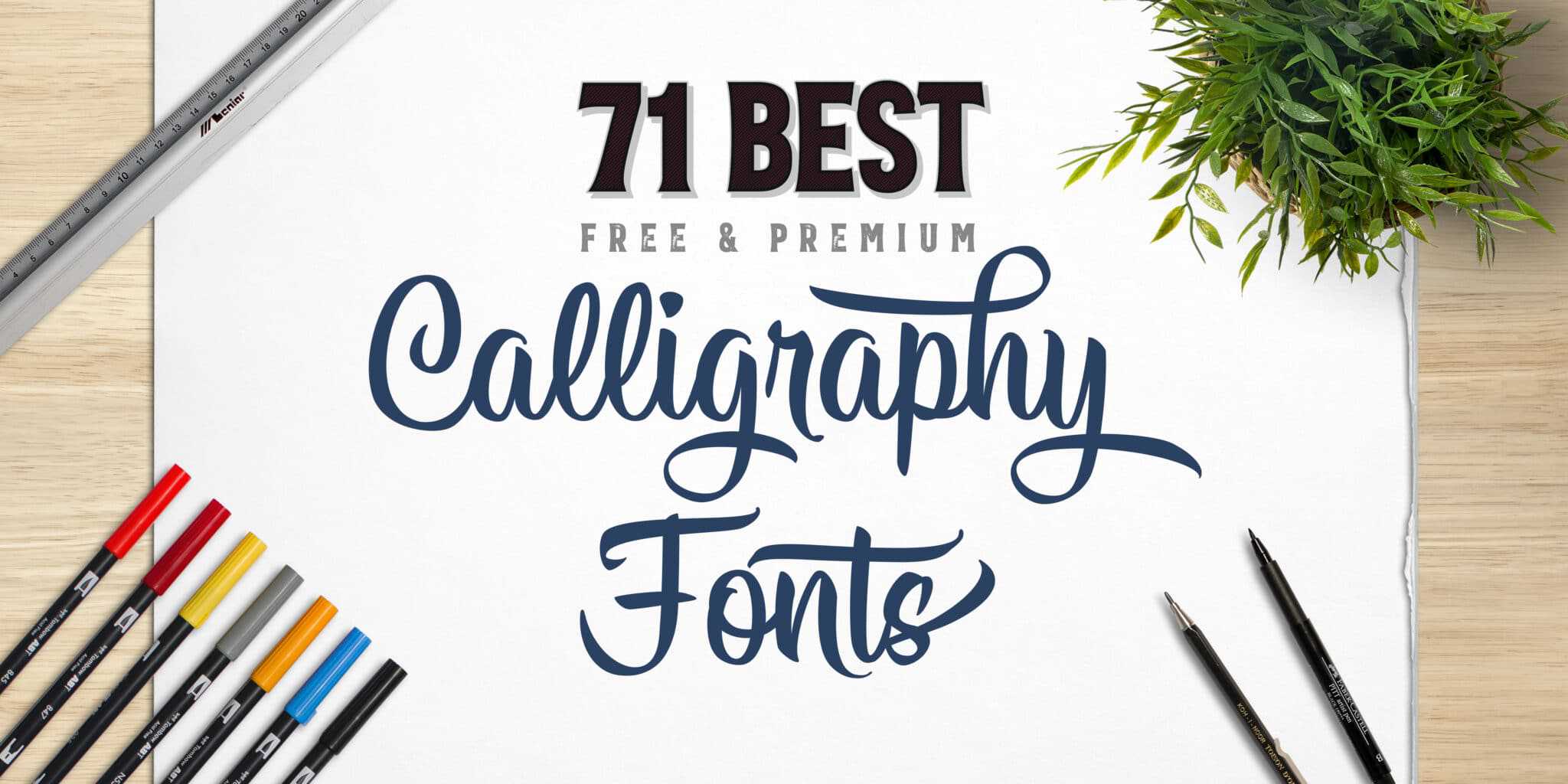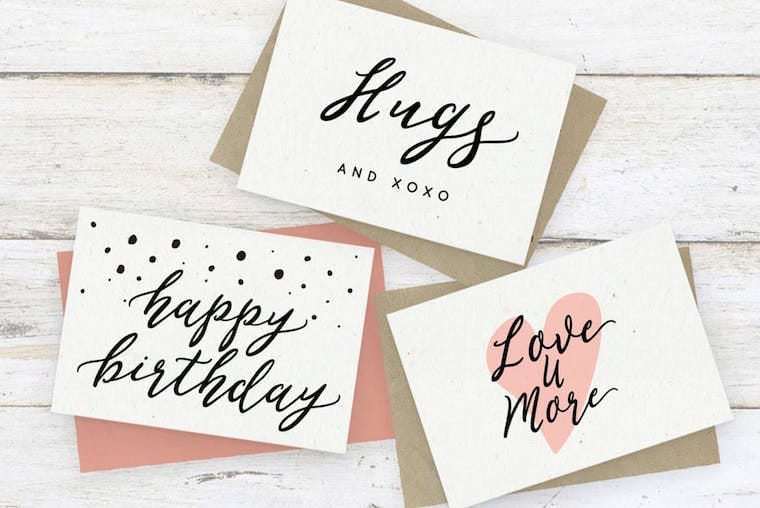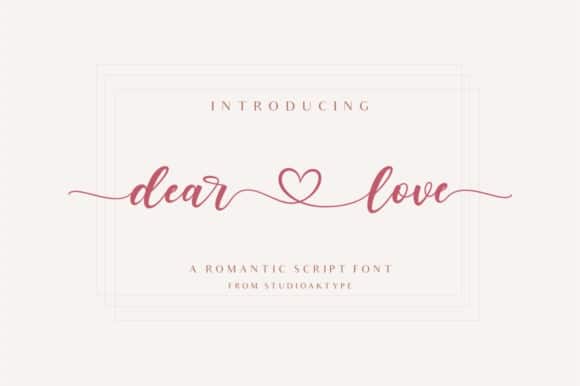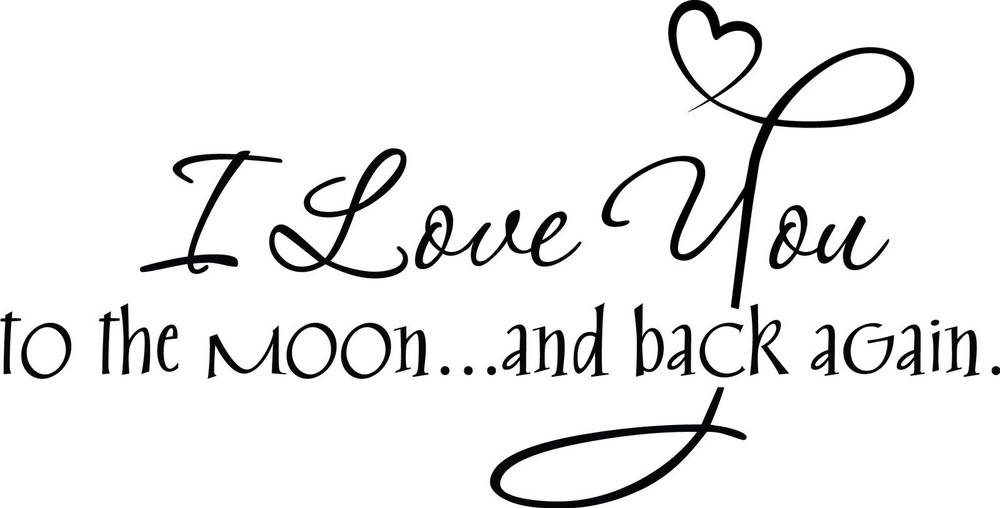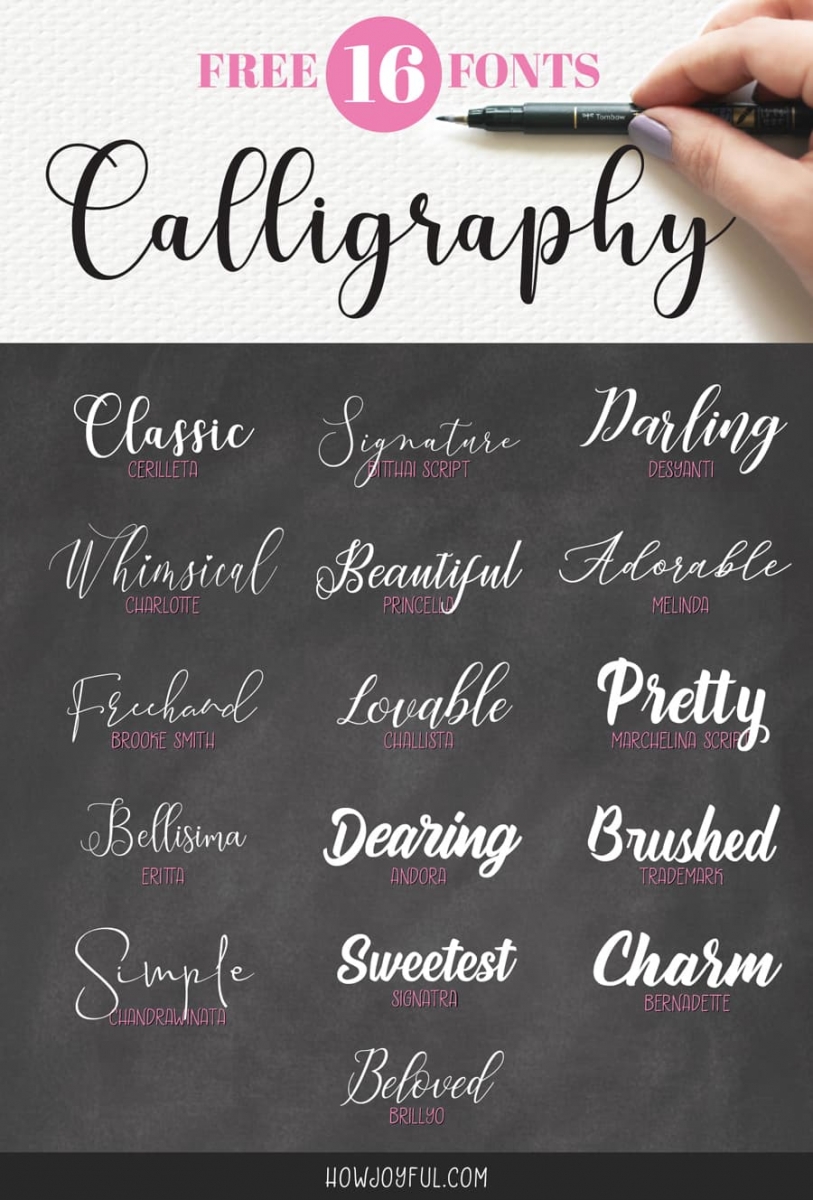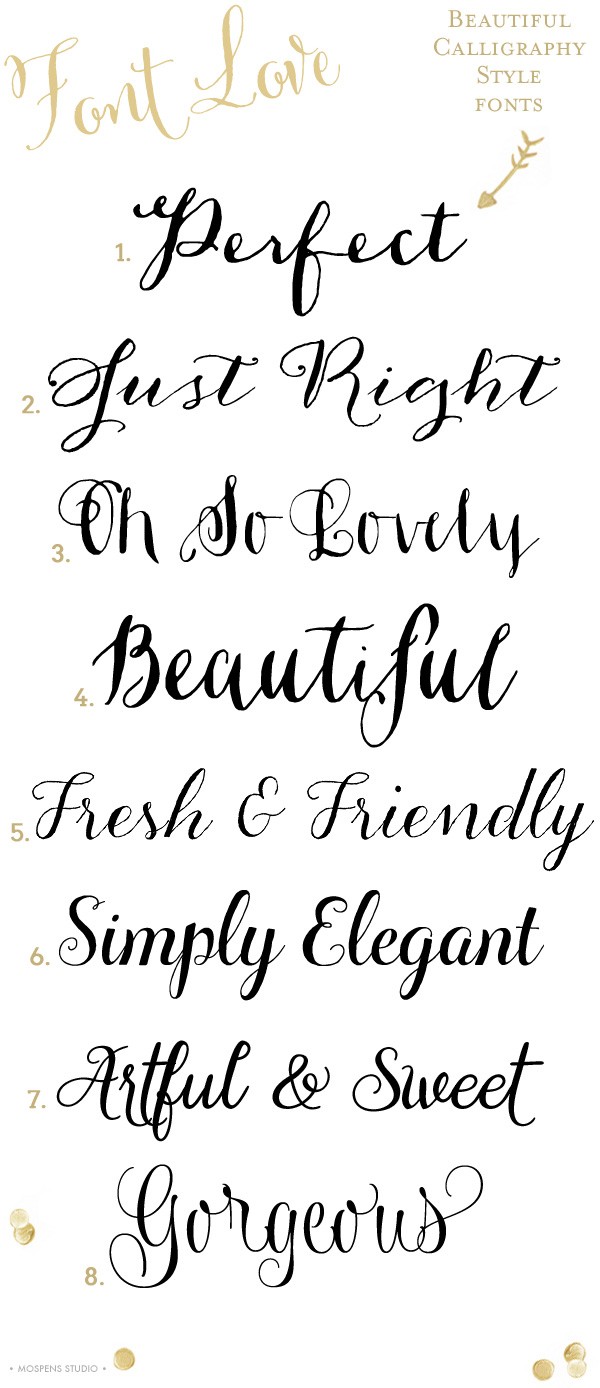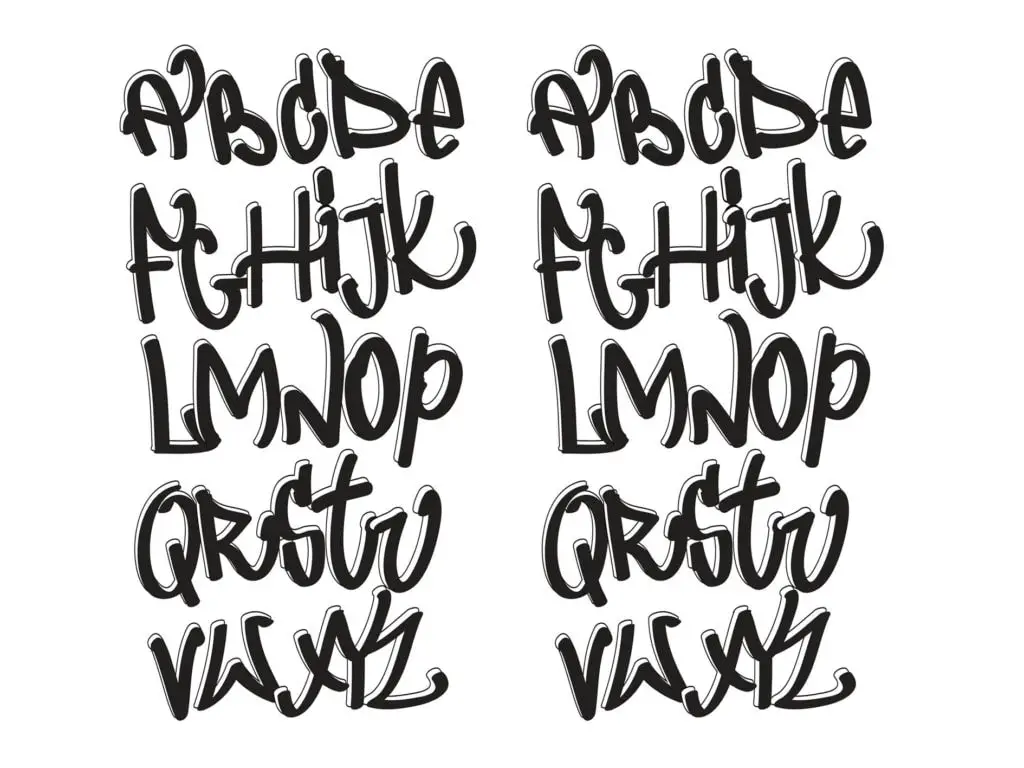
With its elegant caps you cant really help but attempt this. Calligraphy is an ancient writing technique using flat edged pens to create artistic lettering using thick and thin lines depending on the direction of the stroke.
You can use these letters for fun design purposes.
Calligraphy love in different fonts. Calligraphy fonts resemble elegant handwriting. The height of calligraphy was reached in the middle age where monks developed the narrow writing style called gothic allowing more words to fit on a single line as paper was expensive at the time. 1 font style from 1200.
See more ideas about hand lettering calligraphy letters. Lovely fonts for that special someone or occasion how romantic. The writing is readable but is usually extravagant and embellished with flourishes.
This beautiful font has such long sweeping strokes and swirls. Here is a list of different calligraphy fonts that a beginner would love to explore. This is the type of letter that tells about our love we are happy with a quote Love must always be worthy of happiness.
For different scripts for example Chinese or Arabic they have developed their own way of calligraphy. Calligraphy is an artistic writing style where the pressure is varied to create thick and thin lines all in a single stroke. First love FD by Letterara.
Swashes and stylish alternates are often a big part of calligraphy fonts. Here is another take on the calligraphy aesthetic but with a different personality.